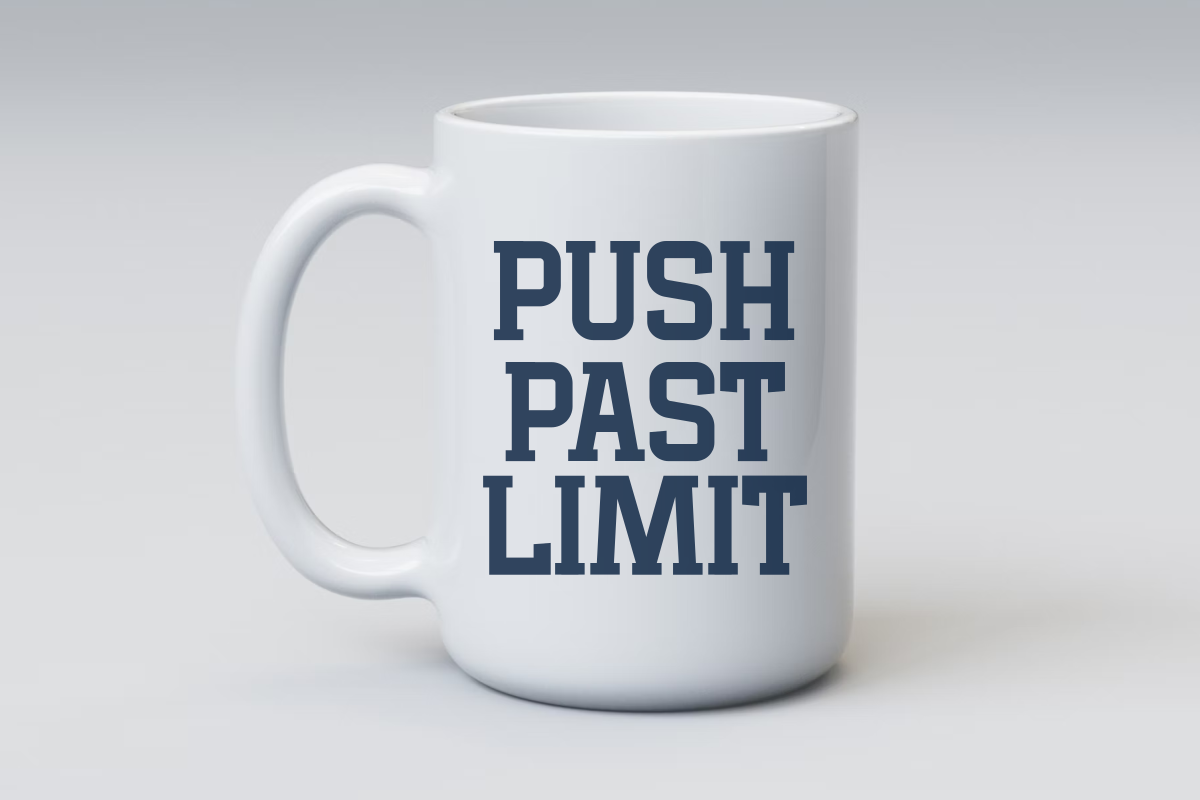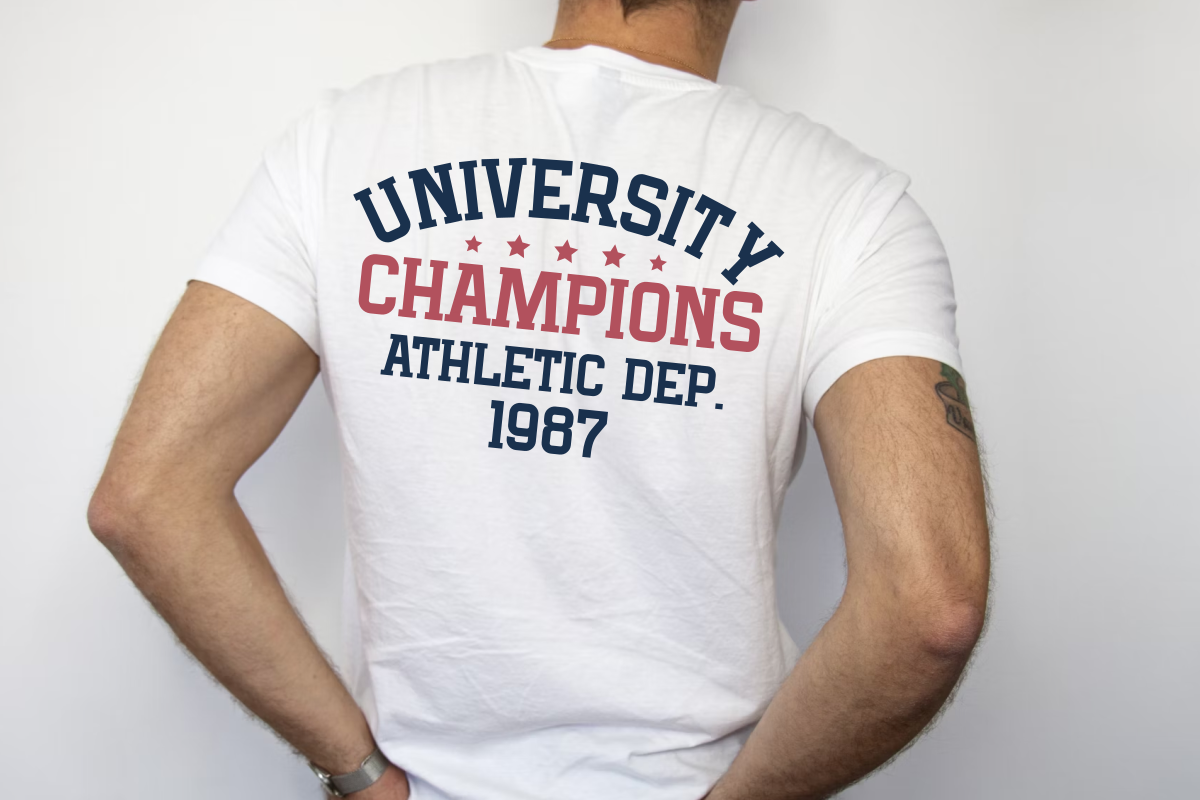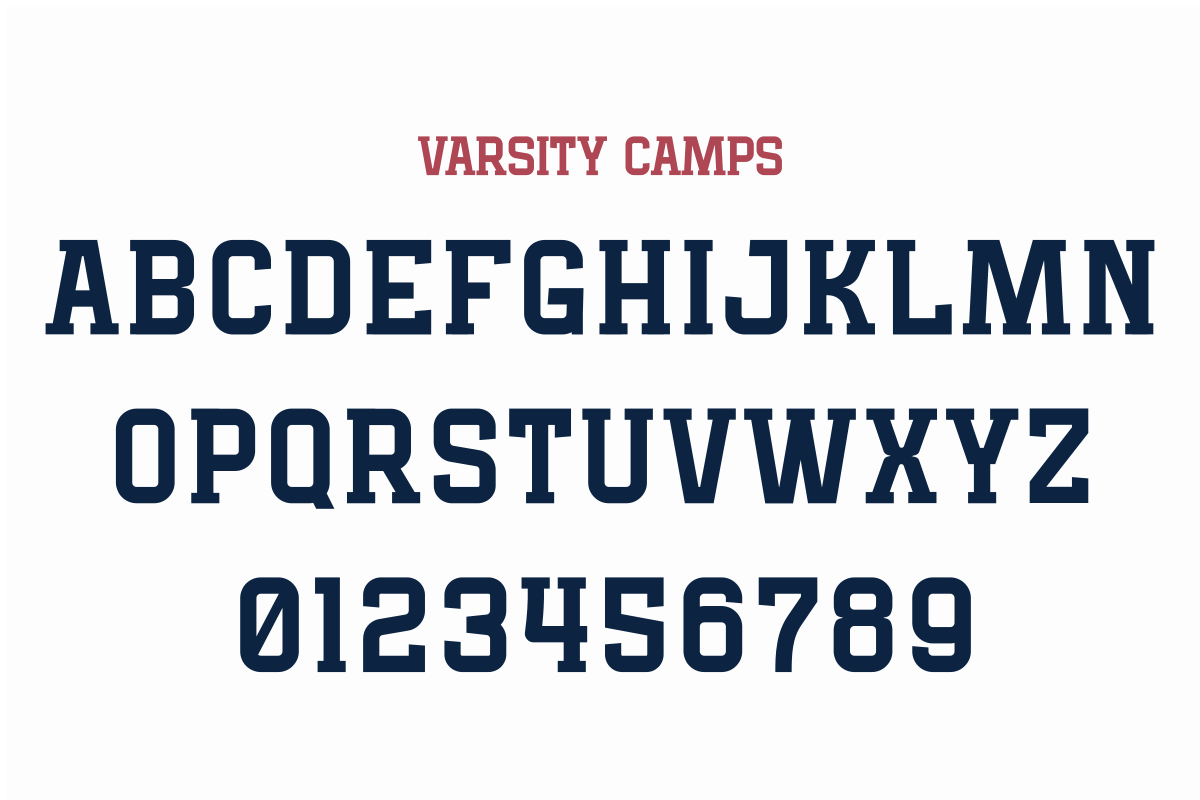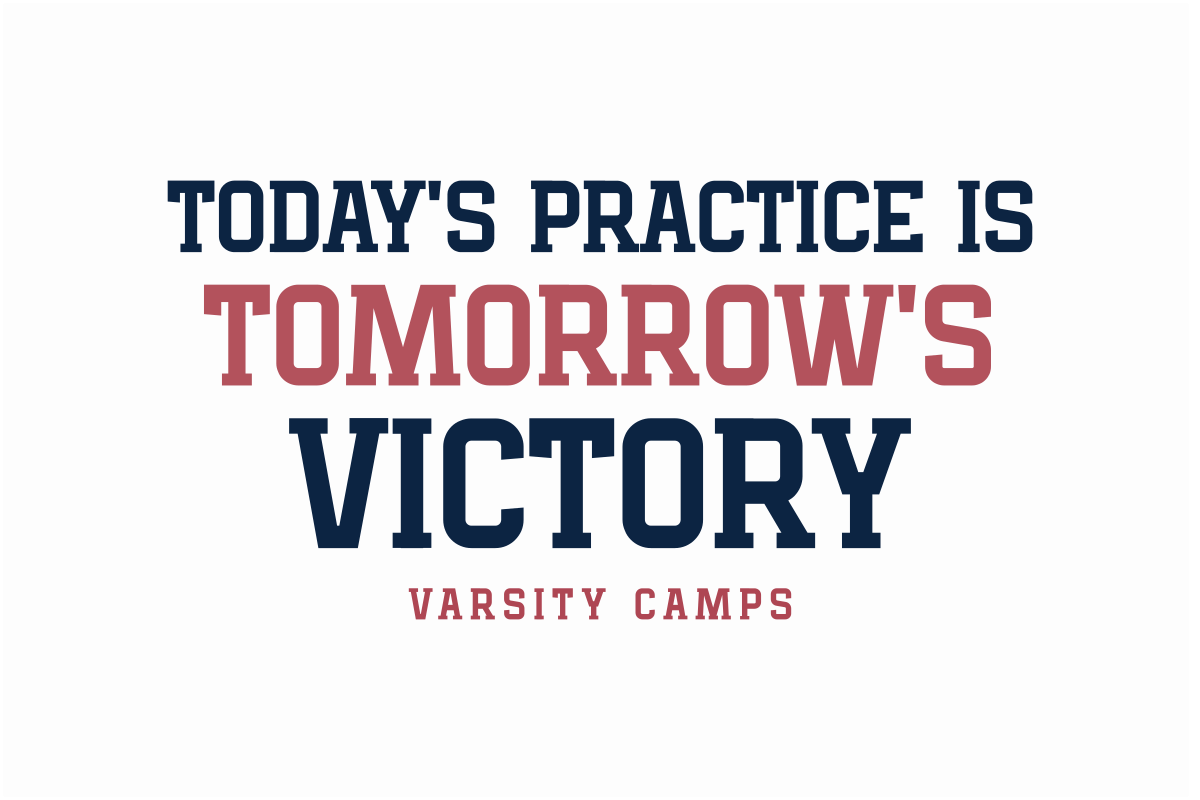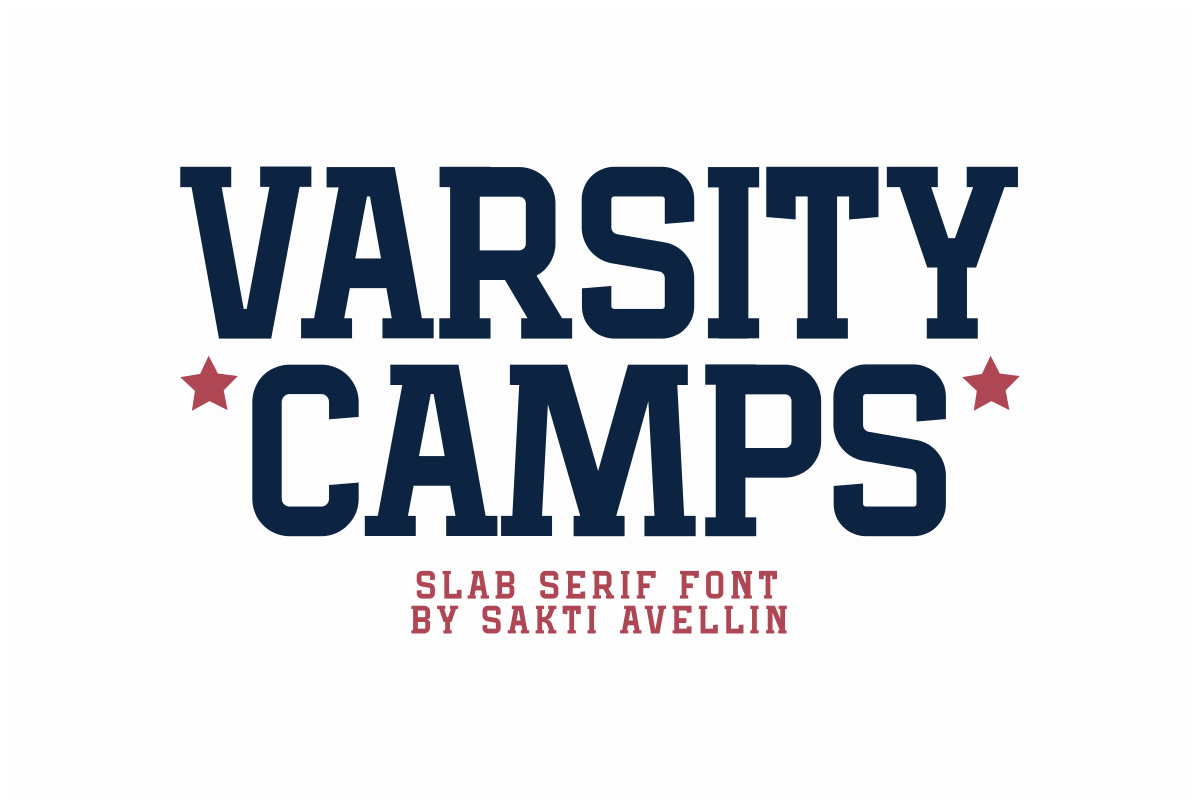
Varsity Camps - Slab Serif Font
Varsity Camps is a bold, high-impact slab serif font designed to bring a classic collegiate and athletic energy to your creative projects. This powerful sports typeface features heavy block serifs and clean, authoritative lines, making it an essential choice for team branding, university-style apparel, jersey designs, and stadium posters. Its strong silhouette ensures it stands out as a leading display font for headlines and athletic marketing, perfect for designers seeking a mix of traditional campus vibes and modern sports aesthetics. Command attention with the competitive and timeless spirit of Varsity Camps!